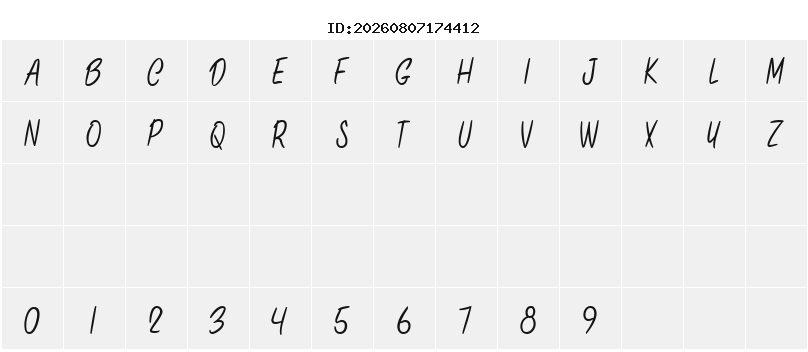
ONLY IN THIS CASE Preview
• Font Name: ONLY IN THIS CASE
• Font ID: Maelle.K: ONLY IN THIS CASE: 2015
• Full Font Name: ONLYINTHISCASE
• Version: Version 1.000 2015 initial release
• PostScript Name: ONLYINTHISCASE
• Character Count: 91
• Manufacturer: Maelle.K
About ONLY IN THIS CASE.ttf
ONLY IN THIS CASE.ttf is a modern, elegant sans-serif font designed for ultimate readability and visual harmony. Perfect for branding, headlines, web design, and print materials.